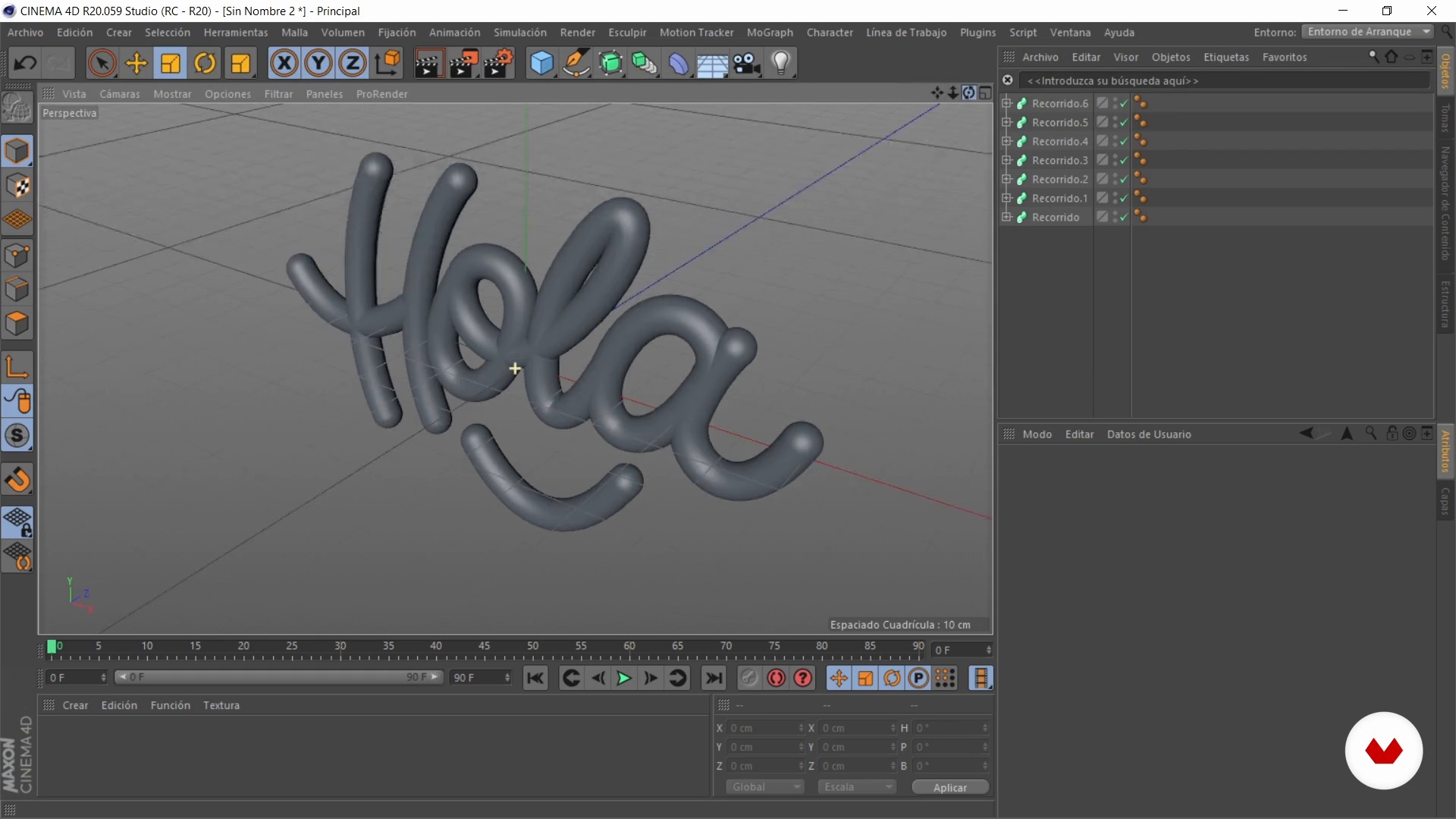
3D Font Design with a Metallic Finish
Lettering modeling with liquid finish 1
About the video: Lettering modeling with liquid finish 1
“Now in Cinema 4D, I'm going to show you how to model the first of the projects: the lettering with a liquid finish. ”
In this video lesson Dawlym Murillo Jaramillo addresses the topic: Lettering modeling with liquid finish 1, which is part of the Domestika online course: 3D Font Design with a Metallic Finish. Learn three-dimensional modeling techniques in Cinema 4D to add a realistic and vibrant touch to your lettering.
“Now that we know how Cinema 4D works, We are going to import the vectorization that we did in the first exercise and we are going to work directly on this program. To open a file in Illustrator's Cinema 4D, What we can do is go to File, we click on open, We select the file that we want to open and we simply open it. The other would be to go to File, we click merge and we open the file we want, in this case it will be hello and a window automatically appears where it says that if we want to import an Adobe Illustrator file we always accept and in this way it is merged with the document that ...”